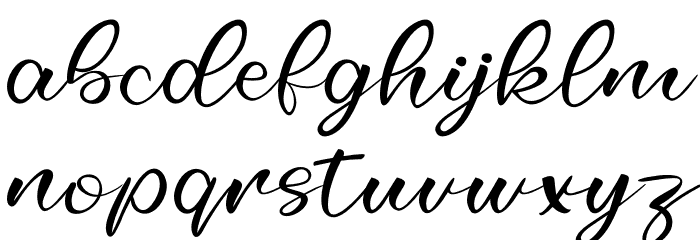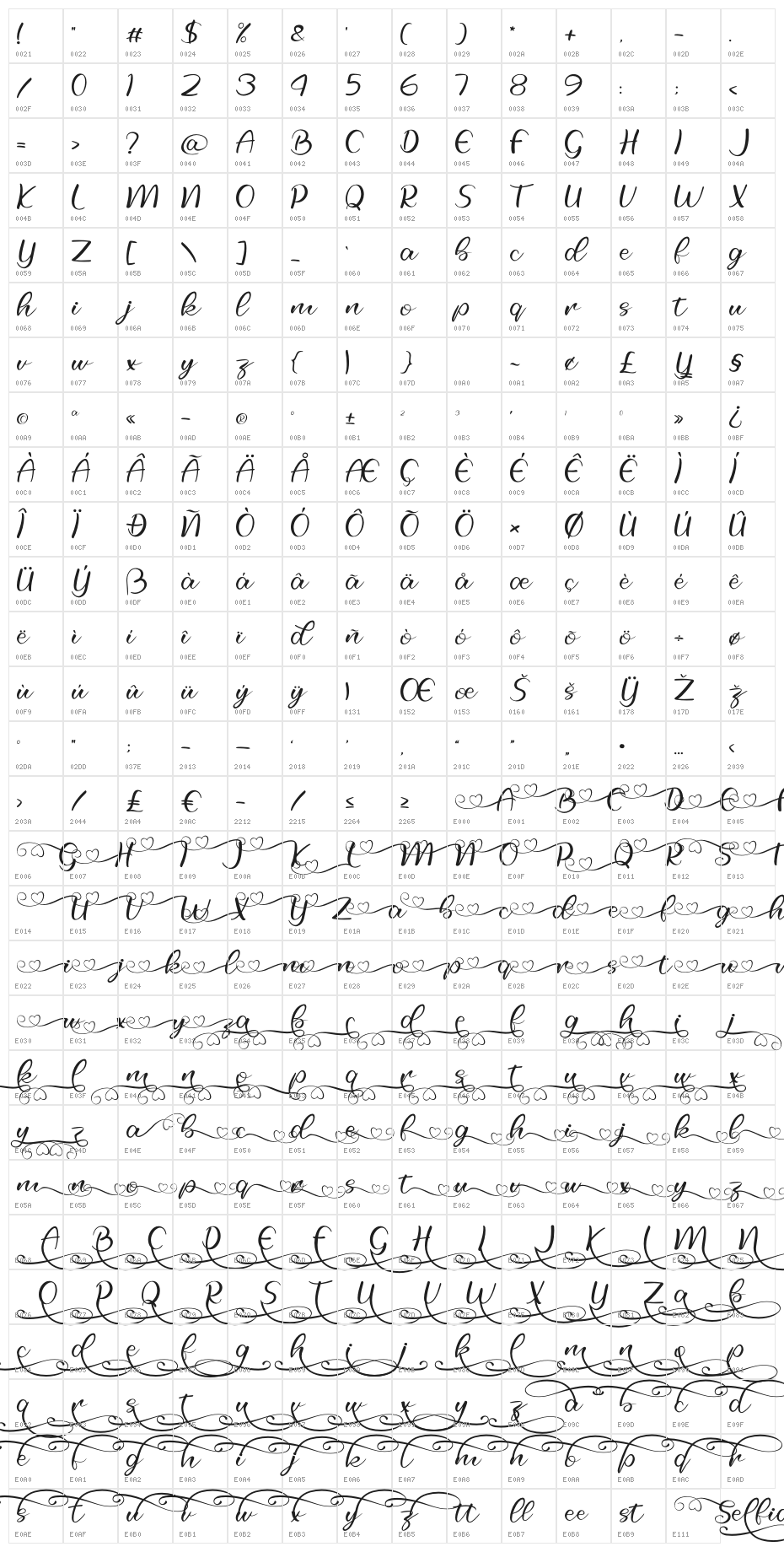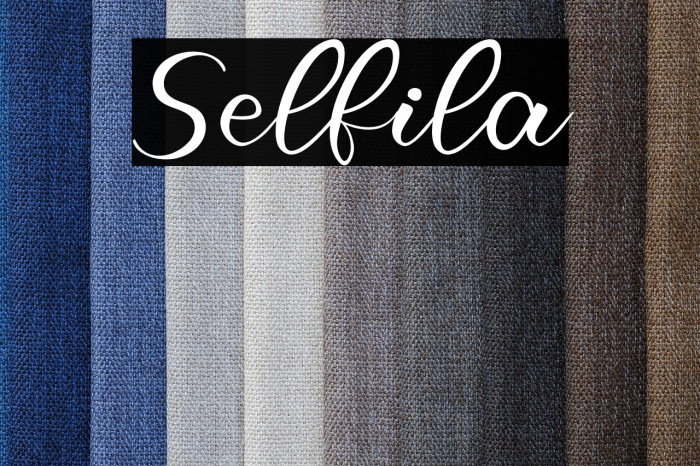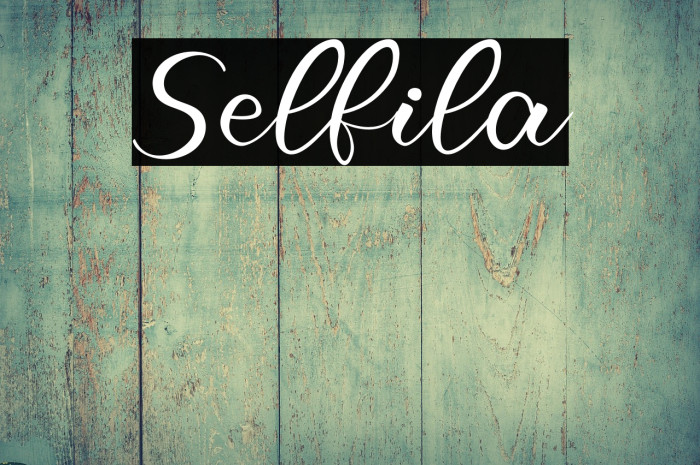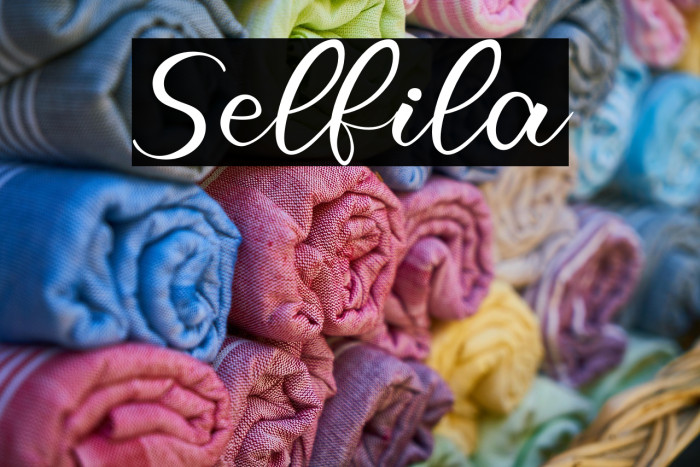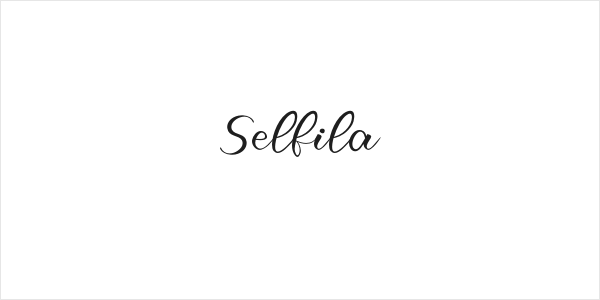
Selfila Font
This font exudes a flowing and elegant script style, characterized by its smooth, cursive strokes and graceful curves. The uppercase letters are bold and sweeping, while the lowercase letters maintain a consistent fluidity that enhances readability. The numerals are distinct and stylish, complementing the overall aesthetic. Special characters are crafted with the same attention to detail, ensuring a cohesive look throughout. This font is ideal for projects that require a touch of sophistication and charm, making it suitable for invitations, branding, and decorative purposes.
A flowing, elegant script font with smooth, cursive strokes.
- Proposed Projects: Ideal for wedding invitations, branding, greeting cards, and decorative signage.
- Category: Script
- Overall Style: Elegant, Decorative
- Use Case: Logos, Invitations, Decorative text